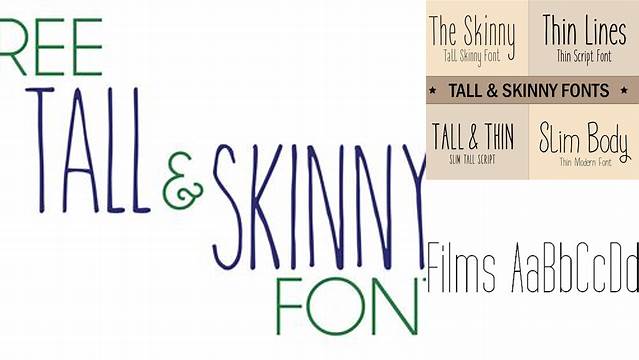
Download Tall Thin Fonts Free - Best Picks For Designers
Hey guys! Ever been on the hunt for the perfect tall thin fonts to give your designs that sleek, modern edge? You're not alone! Finding the right font can be a game-changer, whether you're working on a logo, website, or print project. And the best part? You don't always have to break the bank to get a fantastic font. Let's dive into the world of tall thin fonts free download and explore some awesome options and how to make the most of them. Finding the perfect font can be like finding the perfect pair of jeans β it just elevates everything else.
1. Exploring the Allure of Tall and Thin Fonts
So, what's the deal with tall thin fonts anyway? Why are they so popular, and what makes them stand out? These fonts are all about elegance and sophistication. Their height gives them a commanding presence, while the thin strokes add a touch of refinement. Think of them as the supermodels of the font world β always stylish and eye-catching. These fonts are excellent for grabbing attention without being too overwhelming. They bring a sense of minimalism to any design, which can be super effective in conveying a modern aesthetic. Moreover, tall thin fonts often create an illusion of height and space, making them perfect for designs that need to feel open and airy. From luxury brands to fashion magazines, you'll see these fonts everywhere, signaling class and style. They are also great for headlines and titles, where you need to make a statement but still maintain a clean look. To sum it up, tall thin fonts bring a unique blend of sophistication and modernity that's hard to resist. They have this knack for making things look effortlessly chic, which is why designers love them. So next time you're aiming for that elegant vibe, remember the power of tall thin fonts!
4. Essential Font Features to Look For
Before you hit that download button, let's talk about what to look for in a tall thin font. Not all fonts are created equal, and there are a few key features that can make or break your design. First, consider the character set. Does the font include all the letters, numbers, and symbols you need? This is especially important if you're working with multiple languages or need specific punctuation marks. Next, check the different weights and styles available. A good font family will offer a range of weights, from light to bold, as well as italics. This gives you more flexibility in your designs. Kerning and tracking are also crucial. Kerning refers to the space between individual letters, while tracking is the overall spacing of the font. A well-kerned and tracked font will look more polished and professional. Make sure the font is legible, especially at smaller sizes. Tall thin fonts can sometimes be tricky to read if they're too condensed or have overly delicate strokes. Finally, pay attention to the overall aesthetic of the font. Does it match the style and tone of your project? A font might look great on its own, but it needs to work well with the other elements of your design. By considering these features, you can choose a tall thin font that not only looks good but also meets all your practical needs.
6. Pairing Tall Thin Fonts with Other Typefaces
So, you've got this amazing tall thin font, but how do you make it work with other fonts in your design? Pairing fonts can be tricky, but when done right, it can elevate your entire project. The key is to create contrast while maintaining harmony. A good rule of thumb is to pair a tall thin font with a font that has a different style and weight. For example, you could pair a tall thin sans-serif font with a bolder, more traditional serif font. This creates a visual contrast that draws the eye. Another approach is to use different weights of the same font family. For instance, you could use a tall thin light weight for headings and a regular or medium weight for body text. This creates a cohesive look while still providing some visual interest. When choosing fonts to pair, consider the overall tone and style of your design. Are you going for a modern, minimalist look? Or something more classic and elegant? The fonts you choose should reflect that. Also, pay attention to the spacing and alignment of your fonts. Make sure they're visually balanced and easy to read. Experiment with different combinations until you find something that works. Don't be afraid to break the rules, but always keep readability in mind. With a little practice, you'll become a font pairing pro in no time!
7. Using Tall Thin Fonts in Logos
When it comes to creating a logo, the font you choose can make or break the design. Tall thin fonts can be a great option for logos, especially if you're going for a modern, sophisticated look. These fonts exude elegance and can convey a sense of luxury and exclusivity. When using a tall thin font in a logo, consider the overall brand identity. Does the font align with the company's values and target audience? A tall thin font might be perfect for a high-end fashion brand, but it might not be the best choice for a children's toy company. Keep the logo simple and clean. Tall thin fonts can sometimes be difficult to read at smaller sizes, so it's important to ensure the logo is still legible when scaled down. Experiment with different weights and styles to find the perfect balance. A slightly bolder weight might be necessary to make the logo stand out. Also, consider the color palette. Tall thin fonts often look great in monochrome or with subtle color accents. Avoid using too many colors, as this can detract from the font's elegance. Test the logo on different backgrounds and in different sizes to ensure it looks good in all contexts. A well-designed logo with a tall thin font can create a lasting impression and help build brand recognition.
8. Tall Thin Fonts for Web Design
In the realm of web design, choosing the right font is crucial for creating a visually appealing and user-friendly experience. Tall thin fonts can be a fantastic choice for websites, especially for headings, titles, and navigation menus. These fonts add a touch of sophistication and modernity to any website. When using tall thin fonts on the web, consider the legibility. Web fonts need to be clear and easy to read on different devices and screen sizes. Choose a tall thin font that is well-optimized for the web and has good rendering quality. Pay attention to the font size and line height. A larger font size and generous line height can improve readability, especially for body text. Use tall thin fonts sparingly. While they can look great for headings, they might not be the best choice for large blocks of text. Consider pairing a tall thin font with a more readable font for body text. Ensure the font is compatible with different browsers and operating systems. Test your website on different devices to make sure the font renders correctly. Also, optimize the font files for web use to improve page loading speed. A well-chosen and implemented tall thin font can enhance the overall design and user experience of your website.
9. Using Tall Thin Fonts in Print Materials
From brochures to business cards, the fonts you choose for your print materials can significantly impact the overall impression. Tall thin fonts can add a touch of elegance and sophistication to your print designs, making them a great option for various projects. When using tall thin fonts in print, consider the paper quality. Smooth, high-quality paper will showcase the font's delicate details better than rough or textured paper. Choose a font weight that is appropriate for the size and purpose of the text. A slightly bolder weight might be necessary for smaller text to ensure legibility. Pay attention to the kerning and tracking of the font. Proper kerning and tracking can improve the readability and visual appeal of the text. Use tall thin fonts strategically. They can be great for headings, titles, and logos, but might not be the best choice for large blocks of body text. Consider pairing a tall thin font with a more readable font for body text. Proofread your designs carefully before printing to catch any errors or inconsistencies. A well-designed print piece with a tall thin font can create a lasting impression and help convey your message effectively.
10. Tall Thin Fonts and Branding
Your brand's visual identity plays a crucial role in how your business is perceived. The fonts you choose are a key element of that identity, and tall thin fonts can be a powerful tool for conveying a specific brand image. These fonts often evoke feelings of sophistication, modernity, and luxury, making them a great choice for brands that want to project those qualities. When incorporating tall thin fonts into your branding, consider your target audience. Does the font resonate with their tastes and preferences? A tall thin font might be perfect for a high-end fashion brand, but it might not be the best choice for a brand targeting a younger, more casual audience. Ensure the font is consistent across all your branding materials, from your logo to your website to your marketing collateral. This helps create a cohesive and recognizable brand identity. Use tall thin fonts strategically to highlight key messages and create visual impact. A well-chosen and consistently applied tall thin font can help your brand stand out from the competition and create a lasting impression on your target audience.
11. Popular Tall Thin Font Styles
Navigating the world of tall thin fonts can be overwhelming, given the sheer variety available. To narrow down your search, let's explore some popular styles that consistently deliver that sleek, modern aesthetic. First up, we have geometric sans-serif fonts. These fonts are characterized by their clean lines and simple shapes, making them incredibly versatile and easy to read. Think along the lines of Futura or Avenir β fonts that exude a sense of efficiency and modernity. Next, there are the elegant serifs. While tall thin fonts are often sans-serif, some serif fonts offer a delicate, refined look that can be equally captivating. Look for fonts with high contrast between thick and thin strokes, like Didot or Bodoni. These fonts add a touch of classic sophistication to any design. Then, there are the minimalist sans-serifs. These fonts take the simplicity of geometric fonts to the next level, stripping away any unnecessary details. They often feature uniform stroke widths and a clean, uncluttered appearance. Examples include Helvetica Neue and Open Sans. Finally, we have the modern scripts. These fonts combine the elegance of traditional scripts with a contemporary twist. They often feature elongated ascenders and descenders, creating a graceful and stylish look. Script fonts like Montserrat or Raleway can add a touch of personality to your designs. By exploring these popular styles, you can find the tall thin font that perfectly matches your design needs and aesthetic preferences.
12. The Psychology of Tall Thin Fonts
Have you ever considered how tall thin fonts can influence the way people perceive your message? Fonts aren't just about aesthetics; they also carry psychological weight, shaping the emotional response of your audience. Tall thin fonts often evoke feelings of sophistication, elegance, and modernity. Their elongated forms suggest a sense of refinement and exclusivity, making them a popular choice for luxury brands and high-end products. These fonts also convey a sense of minimalism and simplicity. Their clean lines and uncluttered appearance suggest a focus on efficiency and clarity. This can be particularly effective for brands that want to project a sense of trustworthiness and reliability. Furthermore, tall thin fonts can create a sense of height and space. Their vertical emphasis draws the eye upwards, creating an impression of grandeur and aspiration. This can be beneficial for brands that want to inspire and motivate their audience. However, it's important to use tall thin fonts judiciously. Overuse can lead to a sense of coldness or detachment. It's crucial to balance these fonts with other design elements that add warmth and personality. By understanding the psychology of tall thin fonts, you can use them strategically to shape your audience's perception and create a powerful brand message.
13. Tall Thin Fonts in Editorial Design
Editorial design, encompassing magazines, books, and newspapers, relies heavily on typography to create visually appealing and engaging layouts. Tall thin fonts can play a significant role in enhancing the overall aesthetic and readability of editorial content. For headings and titles, tall thin fonts can command attention and establish a clear hierarchy. Their elegant and sophisticated appearance adds a touch of refinement to the design, drawing readers into the content. When used in body text, tall thin fonts require careful consideration. Legibility is paramount, so choose a font with adequate spacing and clear letterforms. A slightly larger font size and generous line height can also improve readability. Consider pairing a tall thin font for headings with a more robust and readable font for body text. This creates a visual contrast while ensuring a comfortable reading experience. In magazine layouts, tall thin fonts can be used to create a sense of luxury and exclusivity. They are often paired with high-quality photography and minimalist design elements to convey a sense of sophistication. In book design, tall thin fonts can add a touch of elegance to the cover and chapter titles. However, for the main body of the text, a more traditional and readable font is typically preferred. By using tall thin fonts strategically, editorial designers can create visually stunning and engaging layouts that captivate readers and enhance the overall reading experience.
14. How Tall Thin Fonts Affect Readability
Readability is king when it comes to typography, and tall thin fonts present a unique set of challenges and opportunities in this regard. While they can add a touch of elegance and sophistication to a design, they can also impact how easily and comfortably people can read your text. The primary concern with tall thin fonts is their delicate strokes. These can sometimes be difficult to discern, especially at smaller sizes or on low-resolution screens. This can lead to eye strain and a less enjoyable reading experience. To mitigate this, it's crucial to choose tall thin fonts that are well-designed and optimized for readability. Look for fonts with clear letterforms and adequate spacing between characters. A slightly bolder weight can also improve legibility without sacrificing the font's overall aesthetic. Font size and line height play a crucial role. A larger font size and generous line height can make even the most delicate tall thin fonts more readable. Experiment with different sizes and line heights to find the optimal balance. Consider the context in which the font will be used. Tall thin fonts might be perfectly readable in headings or titles, but they might not be the best choice for large blocks of body text. In such cases, consider pairing a tall thin font with a more robust and readable font. By carefully considering these factors, you can use tall thin fonts effectively without sacrificing readability.
15. Tall Thin Fonts in Motion Graphics
Motion graphics bring designs to life, and the fonts you choose play a vital role in creating visually engaging and dynamic animations. Tall thin fonts can add a touch of elegance and sophistication to motion graphics, but they require careful consideration to ensure readability and visual impact. When using tall thin fonts in motion graphics, animation becomes the key. Simple fade-in and fade-out effects, subtle scaling, and smooth transitions can help showcase the font's delicate details without overwhelming the viewer. Consider the speed and duration of the animation. Fast-paced animations might make it difficult to read tall thin fonts, especially if they have intricate letterforms. Slowing down the animation can improve readability and allow viewers to appreciate the font's aesthetic qualities. Contrast is another crucial factor. Use a background color that provides sufficient contrast with the font to ensure it stands out. Avoid using overly busy or distracting backgrounds, as these can make it difficult to focus on the text. Experiment with different animation techniques to find what works best for your specific font and design. A well-executed motion graphic with a tall thin font can create a captivating and memorable visual experience.
16. Combining Tall Thin Fonts with Bold Colors
Color and typography are powerful design elements that can work together to create visually striking and impactful designs. When using tall thin fonts, pairing them with bold colors can create a dynamic contrast that grabs attention and enhances the overall aesthetic. The key is to strike the right balance. Bold colors can easily overwhelm delicate tall thin fonts, so it's important to use them strategically. Consider using bold colors as accents or highlights, rather than as the primary color for the entire design. High contrast is your friend. Pairing a tall thin font in a light color with a dark, bold background can create a visually striking effect. Conversely, using a dark tall thin font on a light, bold background can also be effective. Consider the emotional impact of the colors you choose. Different colors evoke different emotions, so choose colors that align with the overall tone and message of your design. For example, pairing a tall thin font with a vibrant red might convey a sense of excitement and energy, while pairing it with a calming blue might convey a sense of peace and tranquility. Experiment with different color combinations to find what works best for your specific font and design. A well-executed combination of tall thin fonts and bold colors can create a visually stunning and memorable design.
17. The Future of Tall Thin Fonts in Design
As design trends evolve, so too does the role of typography. Tall thin fonts have enjoyed sustained popularity, and their future in design looks promising, with some exciting developments on the horizon. Expect to see tall thin fonts continue to be used in minimalist and modern designs. Their clean lines and elegant appearance make them a perfect fit for these styles, which are likely to remain popular in the coming years. Variable fonts are gaining traction, allowing for greater flexibility and customization. This technology enables designers to adjust the weight, width, and other characteristics of a font on the fly, opening up new possibilities for tall thin fonts. As screens become more high-resolution, tall thin fonts will be able to display their delicate details with greater clarity. This will further enhance their appeal and make them more readable on digital devices. AI-powered design tools are becoming more sophisticated, making it easier for designers to experiment with different fonts and create unique typographic compositions. This could lead to new and innovative ways of using tall thin fonts. The future of tall thin fonts in design is bright, with plenty of opportunities for innovation and creativity. As technology advances and design trends evolve, these fonts are likely to remain a popular and versatile choice for designers.
18. Tall Thin Fonts for Social Media Graphics
In the fast-paced world of social media, capturing attention is crucial. Tall thin fonts can be a valuable asset for creating visually appealing and engaging graphics that stand out from the crowd. Social media graphics need to be readable on small screens. Choose tall thin fonts that are clear and legible, even at smaller sizes. Avoid using overly intricate or decorative fonts, as these can be difficult to read on mobile devices. Contrast is key. Use a background color that provides sufficient contrast with the font to ensure it stands out. High-contrast color combinations, such as black and white or light and dark shades, can be particularly effective. Consider the overall aesthetic of your brand. Choose tall thin fonts that align with your brand's personality and style. Consistency is important for building brand recognition and creating a cohesive visual identity. Use tall thin fonts strategically to highlight key messages and create visual impact. A well-designed social media graphic with a tall thin font can help you grab attention, convey your message effectively, and build your brand presence.
19. Common Mistakes When Using Tall Thin Fonts
Even the most stylish fonts can be misused, and tall thin fonts are no exception. Avoiding these common pitfalls will ensure your designs look polished and professional. Overuse can diminish impact. While tall thin fonts are elegant, using them excessively can make your design feel overwhelming or monotonous. Use them strategically to highlight key elements and create visual interest. Ignoring readability is a big no-no. Tall thin fonts can be difficult to read, especially at smaller sizes or on low-resolution screens. Always prioritize readability by choosing fonts that are clear and legible and by using appropriate font sizes and line heights. Inconsistent font pairing can create a disjointed design. Choose fonts that complement each other and create a cohesive visual aesthetic. Avoid using too many different fonts in a single design. Neglecting kerning and tracking can negatively impact readability and visual appeal. Pay attention to the spacing between characters and adjust as needed to create a balanced and harmonious design. By avoiding these common mistakes, you can use tall thin fonts effectively and create stunning designs that stand out from the crowd.
20. The Importance of Licensing for Free Fonts
When you find that perfect tall thin fonts free download, it's easy to get caught up in the excitement and forget about the fine print. However, understanding font licensing is crucial to avoid legal issues and ensure you're using the font appropriately. Different licenses dictate how you can use a font. Some fonts are free for personal use only, while others are free for commercial use. Make sure you understand the terms of the license before using a font in any project. Some licenses restrict how you can modify or redistribute a font. If you need to make changes to a font or share it with others, make sure the license allows it. Pay attention to attribution requirements. Some licenses require you to give credit to the font designer or foundry when using the font. Always follow these requirements to avoid copyright infringement. When in doubt, contact the font designer or foundry for clarification. They can provide you with more information about the license and answer any questions you may have. By understanding and respecting font licensing, you can use tall thin fonts free download legally and ethically.